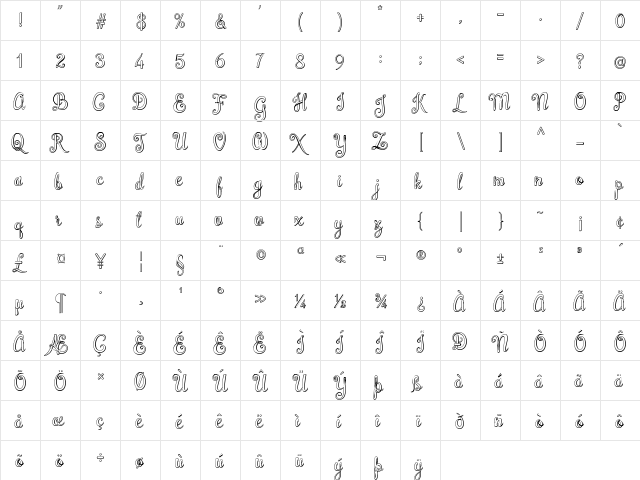
Brazilian Script Regular
Design Context for Brazilian Script Typeface
Brazilian Script flows with the natural rhythm of handwritten lettering, making it ideal for designs that call for warmth and personal expression.
Font Pairing: Combine Brazilian Script with a simple geometric sans for maximum contrast — the tension between flowing curves and clean structure is a classic typographic pairing.
Pro Tip: Pair Brazilian Script with a clean sans-serif for supporting text. The contrast between fluid script and geometric structure creates an elegant typographic hierarchy.